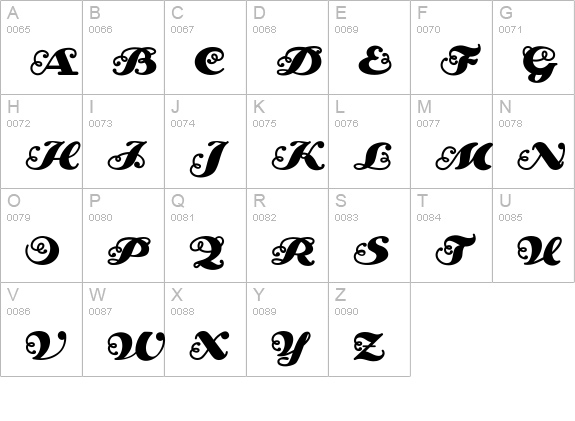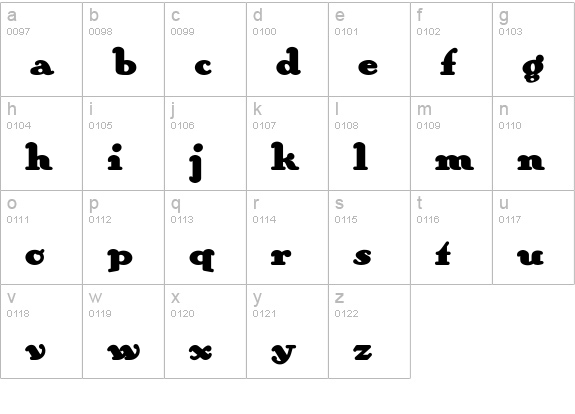
AnAkronism Font Details
The AnAkronism font is a unique and eye-catching typeface that combines modern design elements with a touch of retro nostalgia. Its bold and dynamic letterforms make it perfect for a wide range of design projects, from posters and logos to websites and branding materials. The font features a distinctive mix of sharp angles and smooth curves, giving it a contemporary yet classic feel. What sets AnAkronism apart is its versatility - it can be used for both display text and body copy, making it a great choice for both headlines and paragraphs. Whether you're looking to create a sleek and professional look or add a playful touch to your designs, this font has got you covered. Best of all, AnAkronism is completely free to download at FontsMarket.com. So why wait? Give your next project a fresh and modern look with the AnAkronism font today!